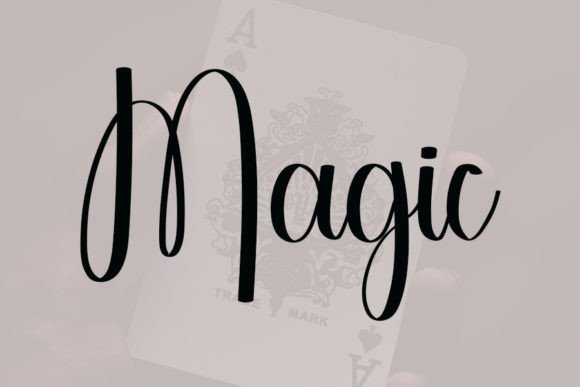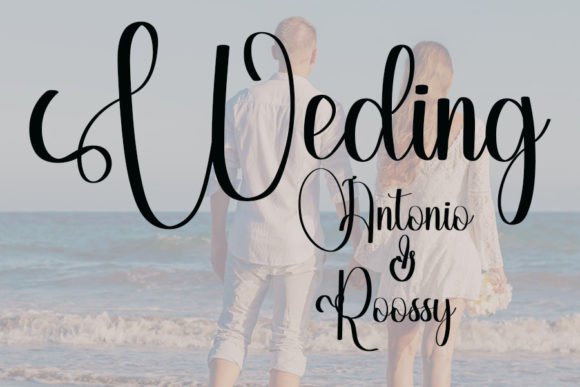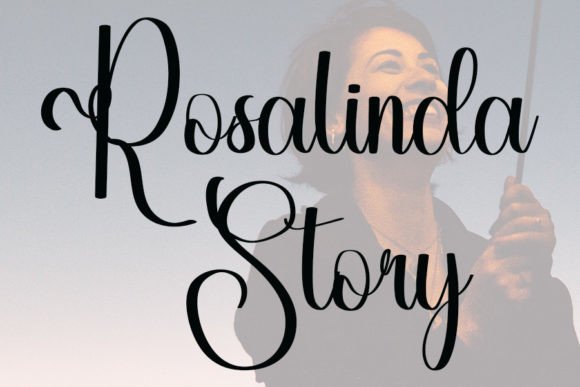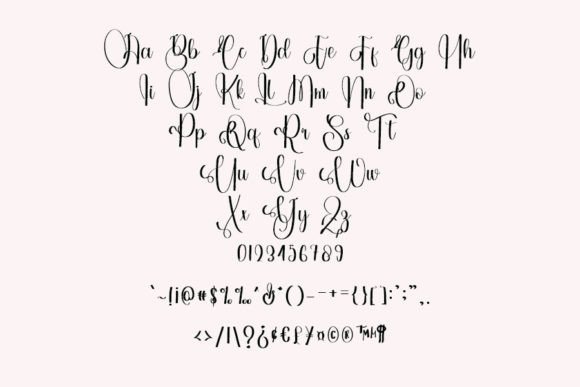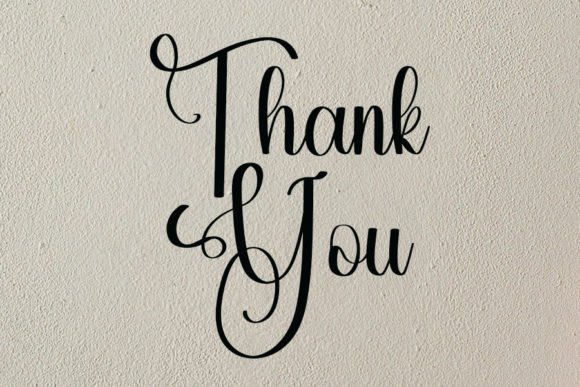
Introducing Balance Font: The Perfect Blend of Classic and Modern
Are you a designer or crafter looking for a font that can add a touch of elegance and sophistication to your creative projects? Look no further than Balance Font, a friendly handwritten font that is carefully designed to become a true favorite. With its classic calligraphy influences and contemporary feel, Balance Font is the perfect addition to your fonts library.
What is Balance Font?
Balance Font is a beautifully crafted handwritten font that strikes the perfect balance between classic and modern. Its unique blend of traditional calligraphy and modern sensibilities makes it an ideal choice for designers and crafters who want to add a touch of personality to their work. Whether you’re working on a branding project, a wedding invitation, or a craft tutorial, Balance Font is sure to make your creative projects come alive.
Key Features of Balance Font
- Classic Calligraphy Influences: Balance Font draws inspiration from traditional calligraphy, giving it a timeless and elegant feel.
- Contemporary and Fresh: Despite its classic influences, Balance Font feels modern and fresh, making it perfect for designers and crafters who want to stay on-trend.
- Handwritten with Love: Balance Font is carefully crafted by hand, giving it a personal and unique touch.
- Easy to Read: With its clear and legible design, Balance Font is easy to read, making it perfect for body text and headings.
Why Choose Balance Font?
So why choose Balance Font over other fonts? Here are just a few reasons:
- Versatility: Balance Font can be used for a wide range of projects, from branding and advertising to wedding invitations and craft tutorials.
- Elegance: With its classic calligraphy influences, Balance Font adds a touch of elegance and sophistication to any project.
- Personality: Balance Font has a unique and personal feel, making it perfect for designers and crafters who want to add a touch of personality to their work.
How to Use Balance Font
Using Balance Font is easy! Here are a few tips to get you started:
- Pair it with Other Fonts: Balance Font pairs well with other fonts, making it easy to create beautiful and harmonious typography.
- Experiment with Sizes and Colors: Don’t be afraid to experiment with different sizes and colors to find the perfect look for your project.
- Use it for Headings and Body Text: Balance Font is easy to read, making it perfect for both headings and body text.